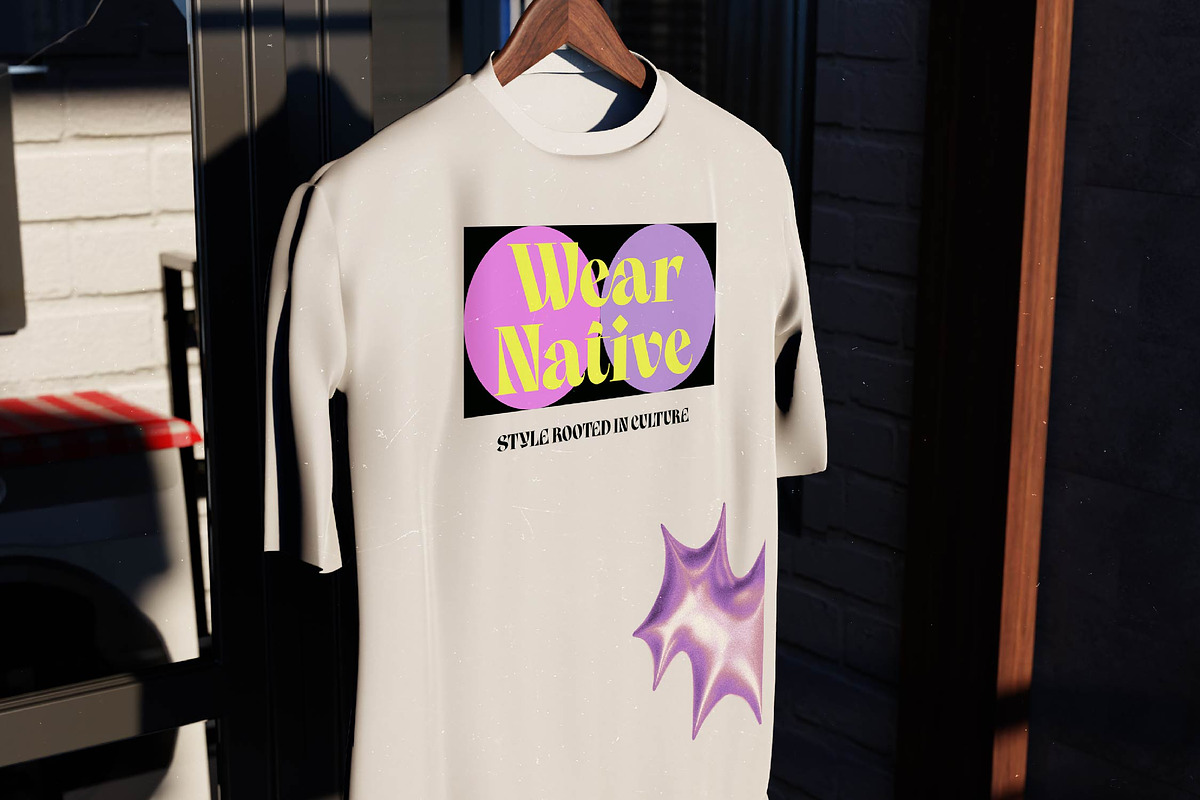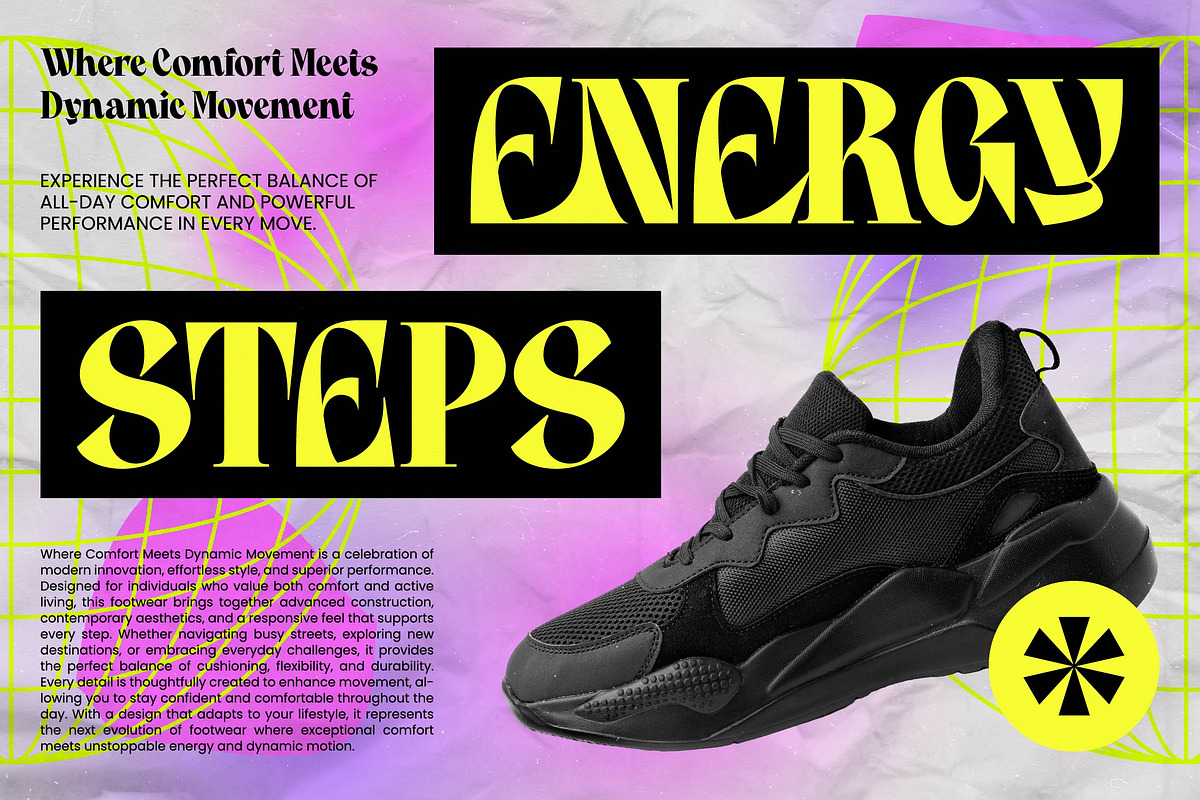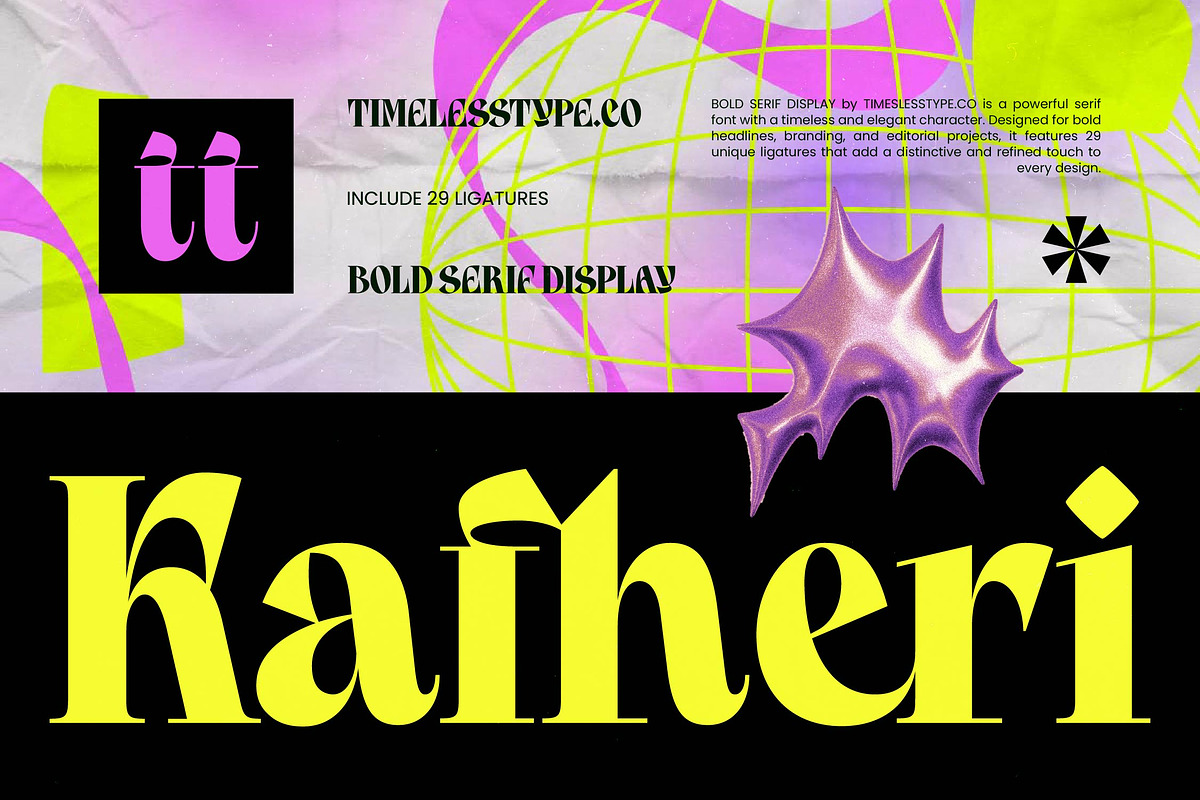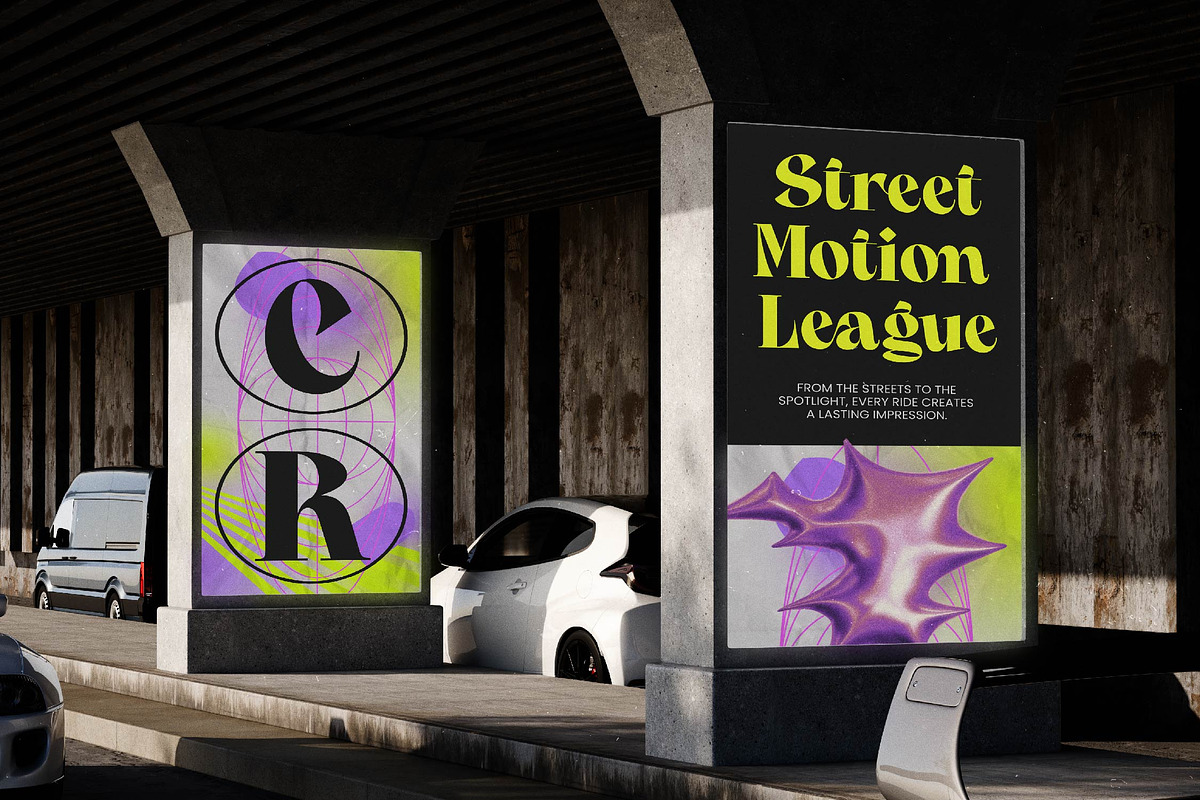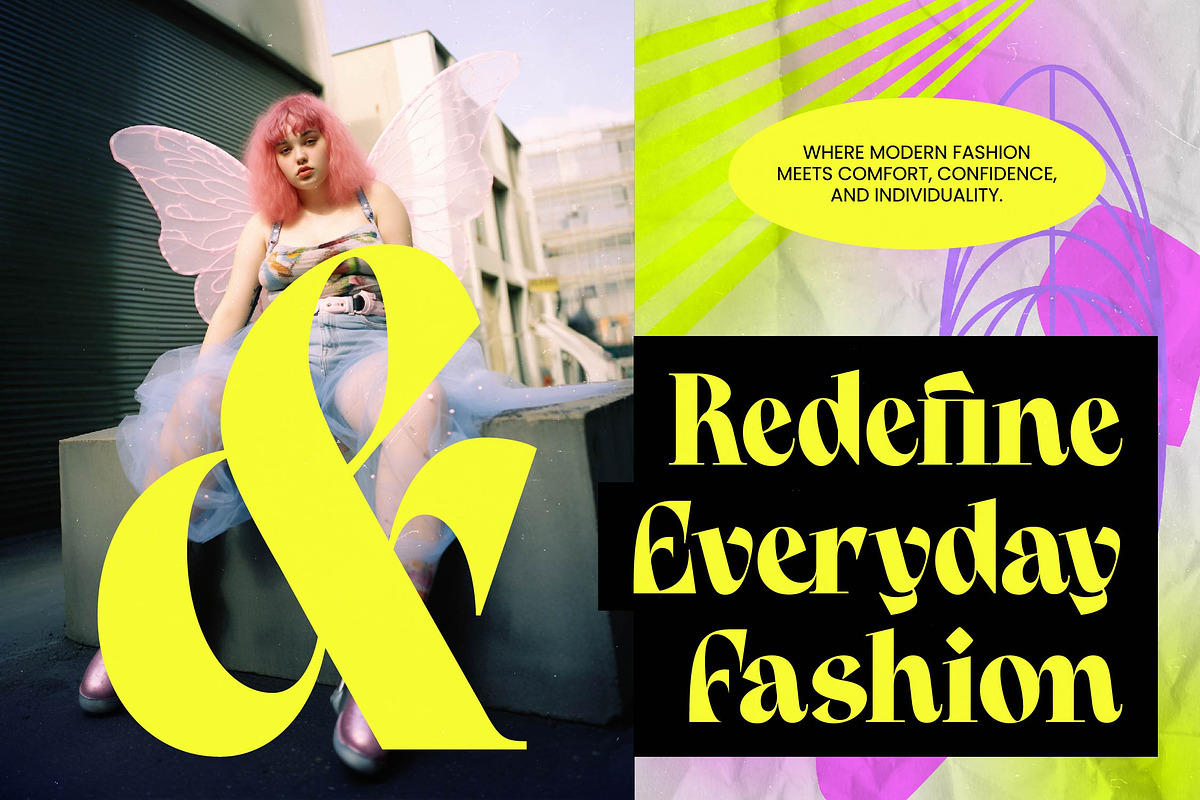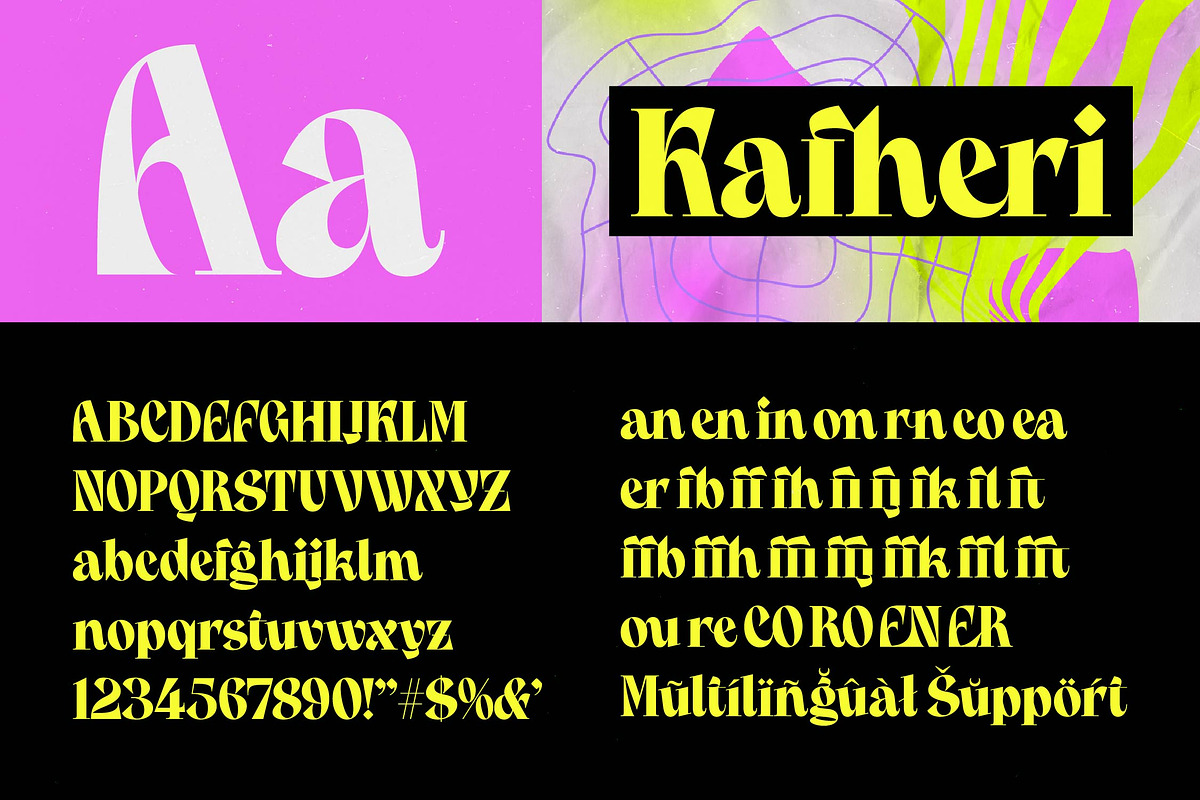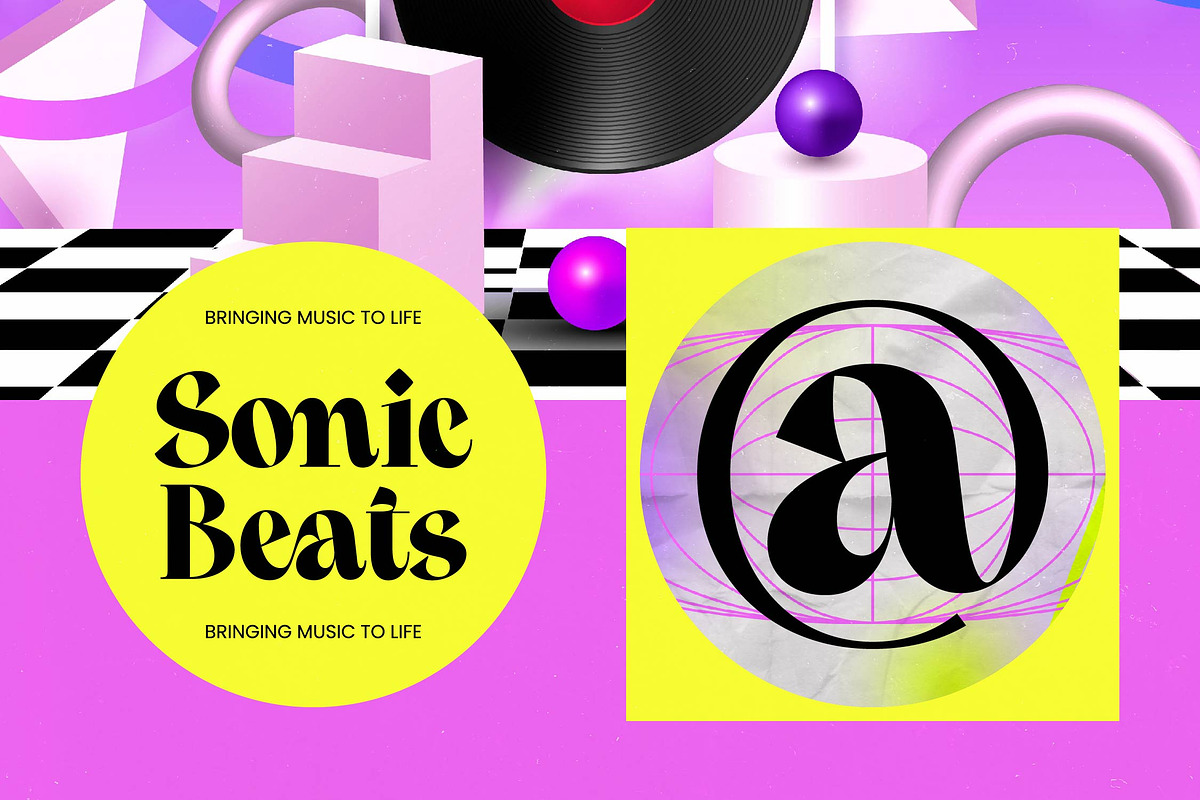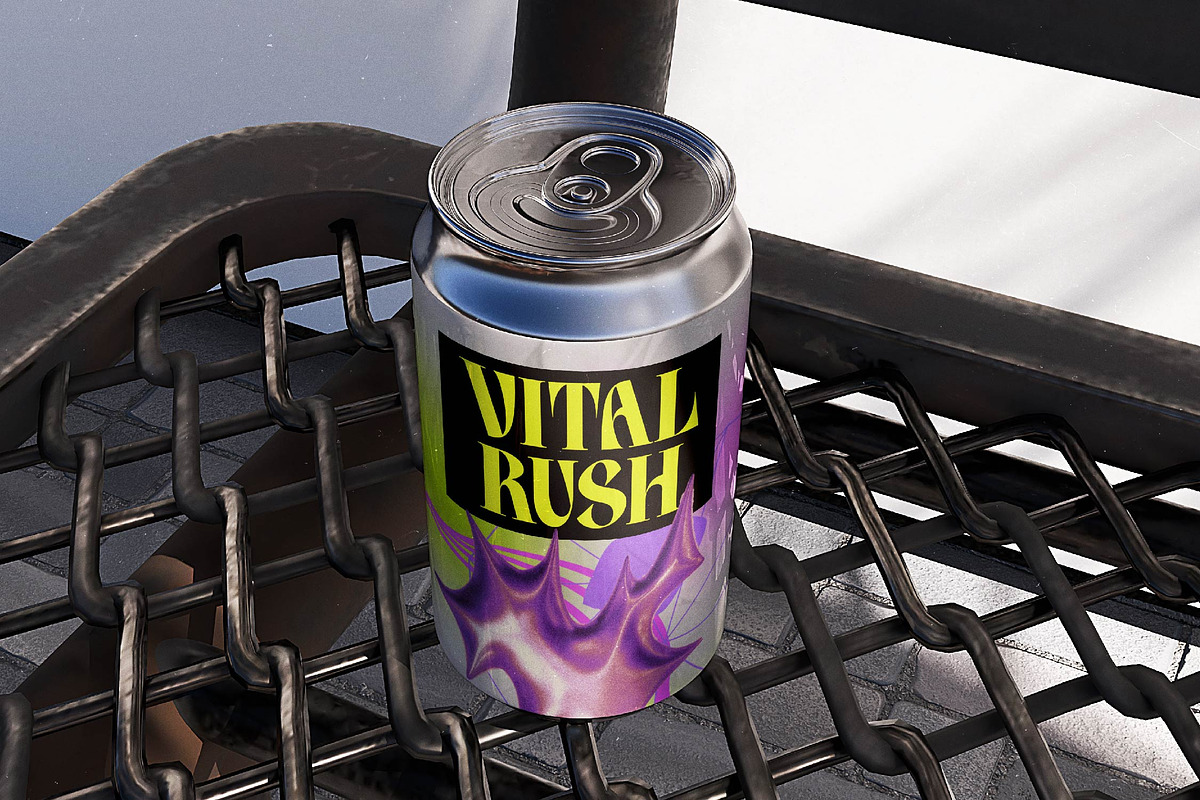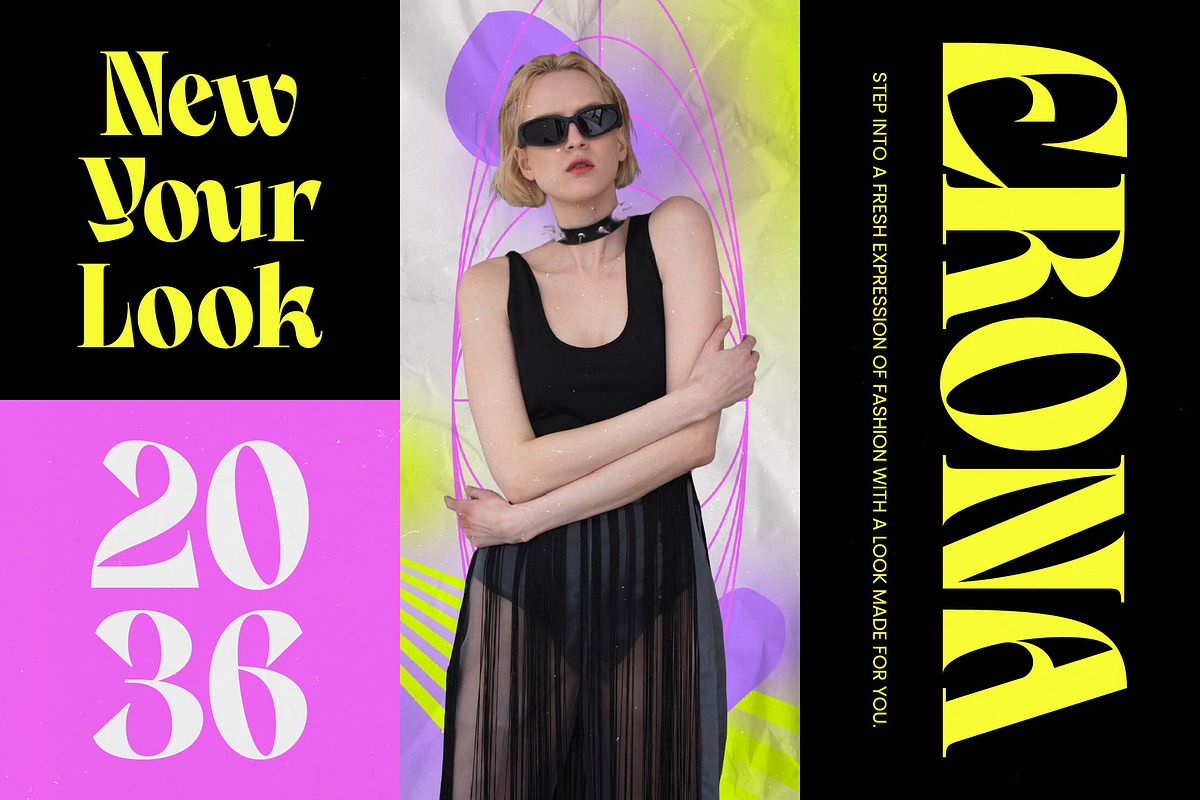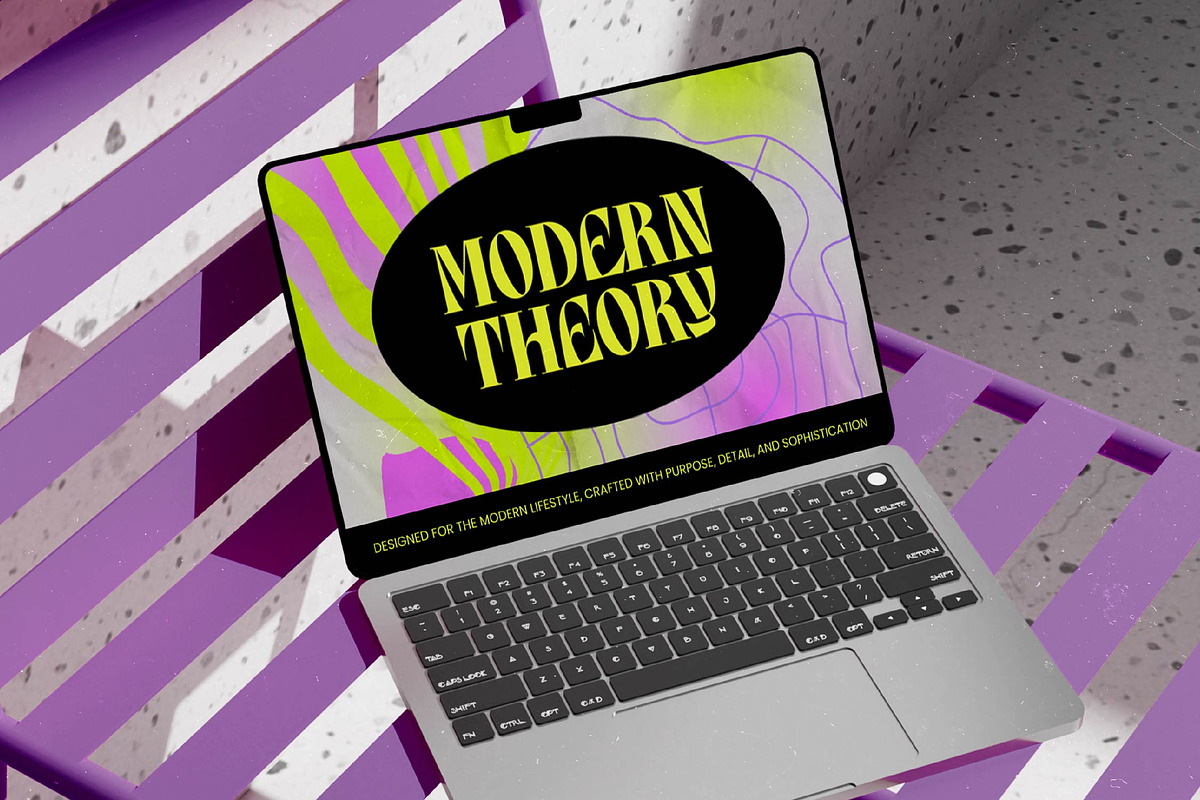
Kafheri Bold Tall Serif
Kafheri - Bold Tall Serif , Elevate your design projects with a typeface that commands attention and exudes sophistication. Kafheri - Bold Tall Serif is a masterfully crafted bold serif display font designed for maximum impact. Characterized by its high-contrast strokes and elegant tall proportions, this typeface blends classic serif aesthetics with a modern, edgy flair. The inclusion of 29 unique ligatures allows for bespoke typographic layouts that feel both custom and high-end.
Experience unparalleled versatility across a wide range of creative disciplines. This typeface is perfect for luxury branding, high-end packaging, and editorial design where a bold statement must be made. Whether you are crafting a premium logo, designing a fashion magazine cover, or creating compelling headlines for digital media, Kafheri - Bold Tall Serif provides the visual weight and refined character necessary to distinguish your brand from the competition.
Bridge the gap between local charm and international appeal with a truly global font solution. With its extensive multilingual support, Kafheri - Bold Tall Serif adapts seamlessly across global markets, making it incredibly versatile for international projects. This ensures that your brand identity remains consistent and impactful regardless of the language, providing a unified visual voice for multinational campaigns and diverse audiences worldwide.
Transform your creative vision into a tangible reality with a font built for excellence. By choosing Kafheri - Bold Tall Serif, you are investing in a professional-grade tool that balances artistic expression with functional clarity. Its timeless character ensures longevity, making it a valuable asset for any designer's toolkit. Unlock the full potential of your next visual identity project and achieve a polished, sophisticated look that resonates with your target demographic.